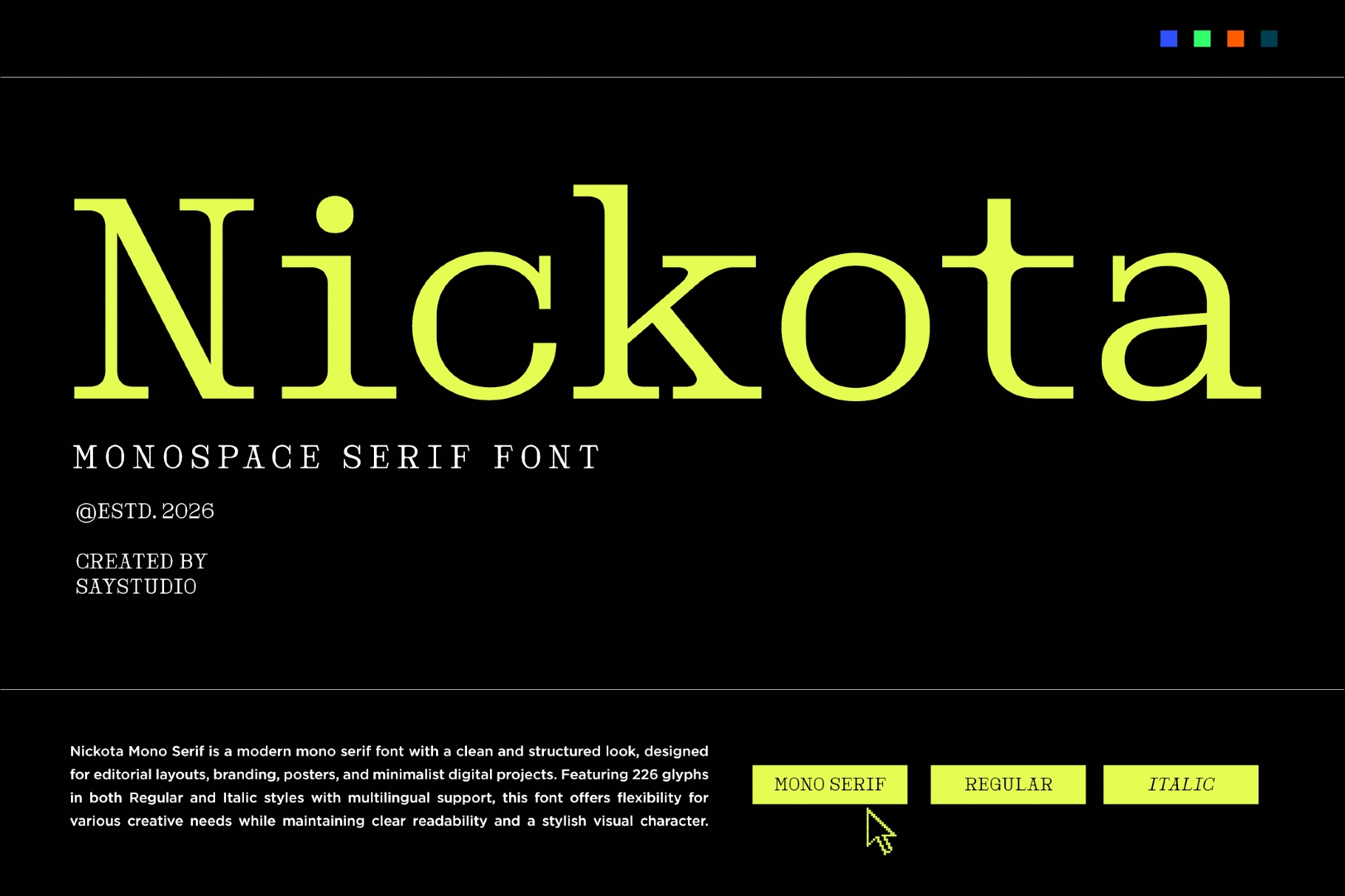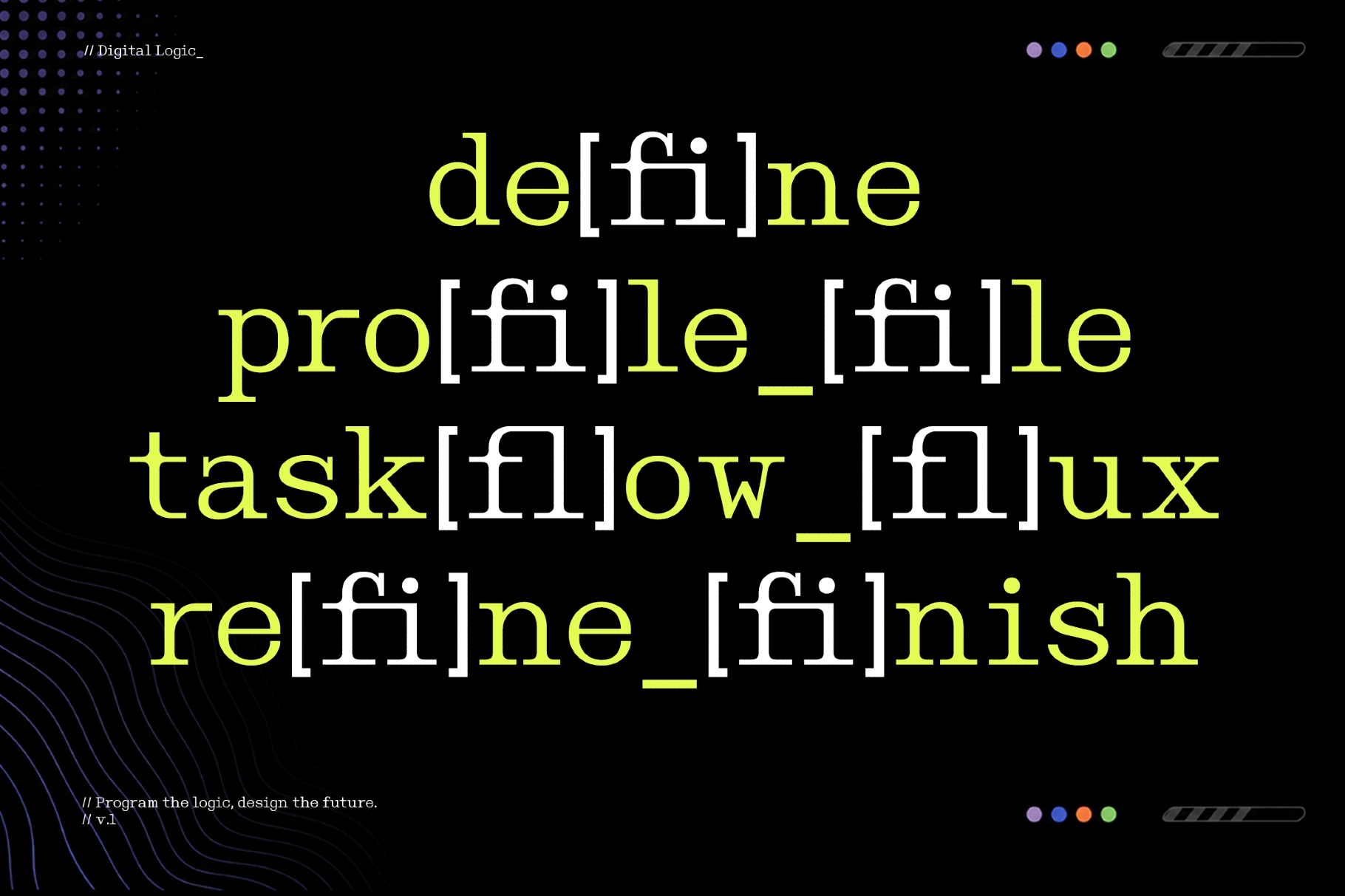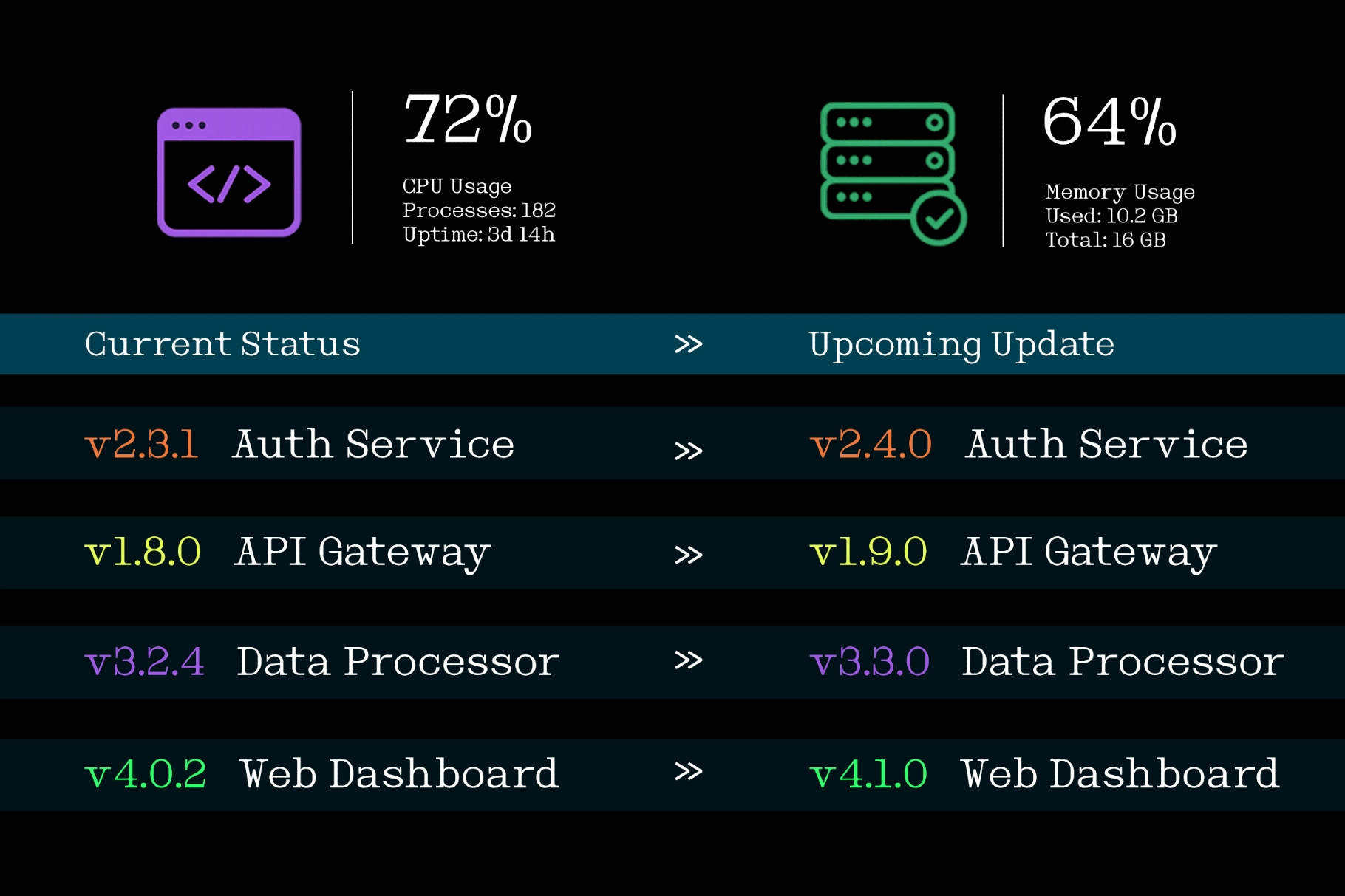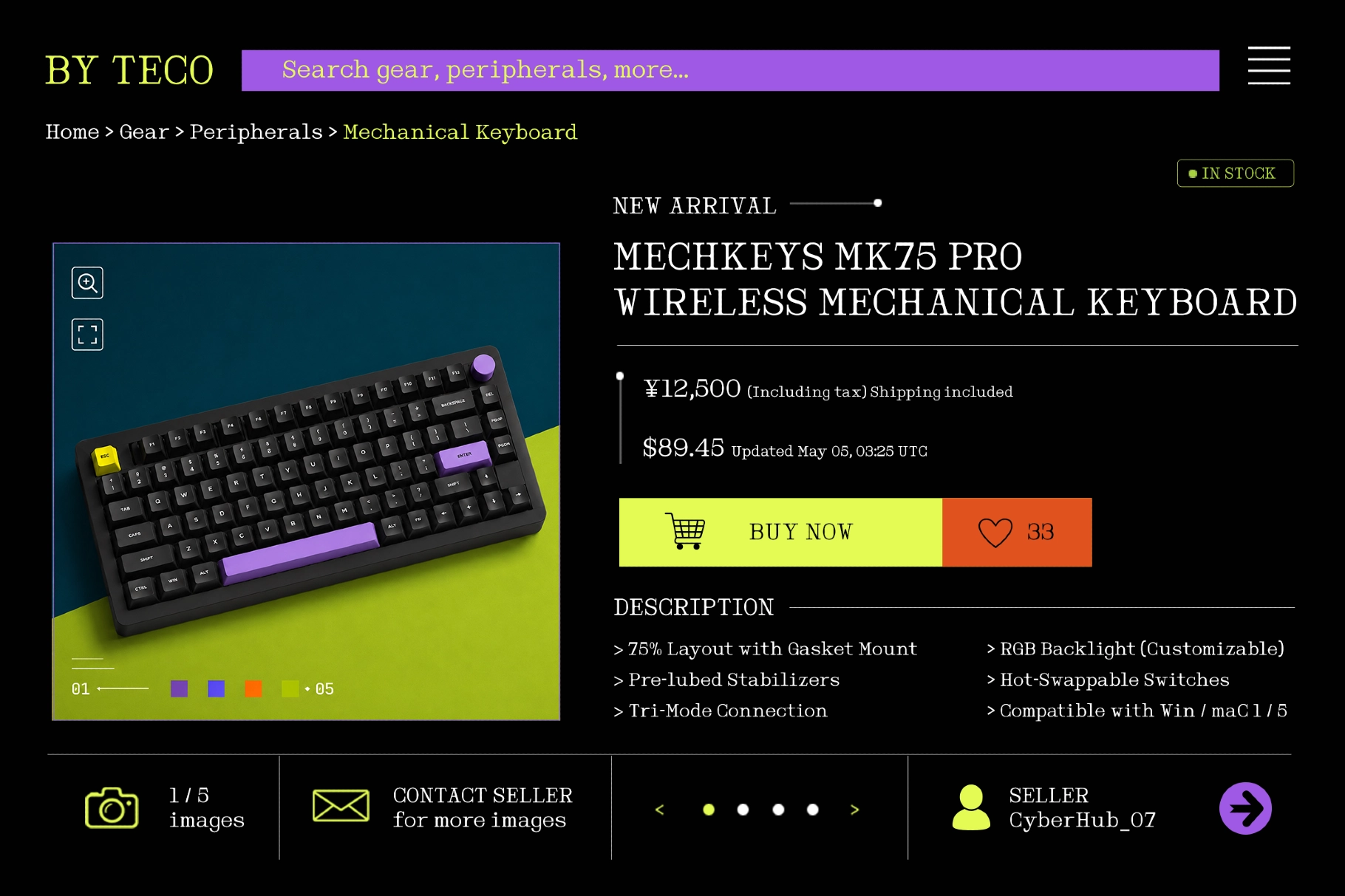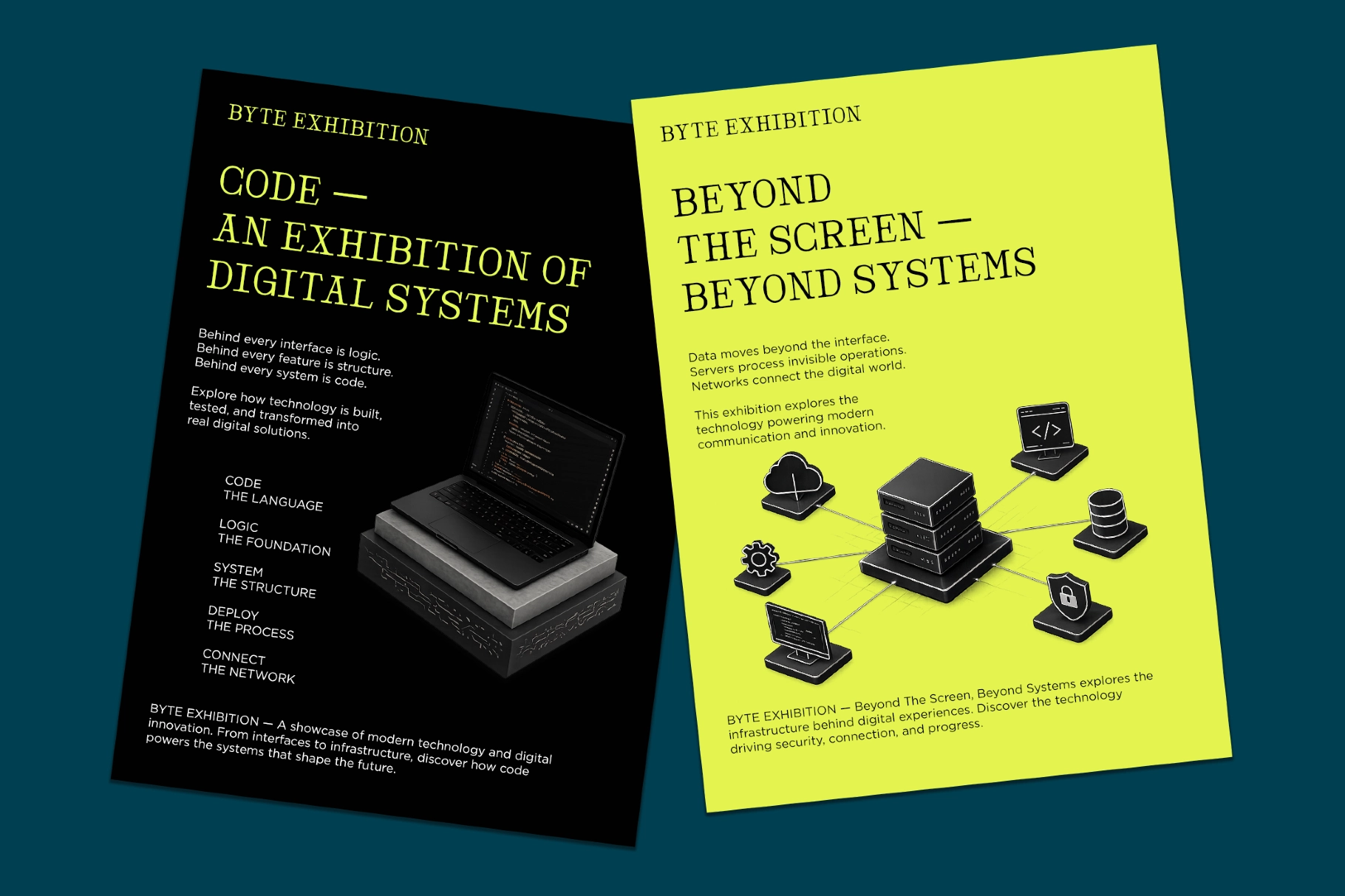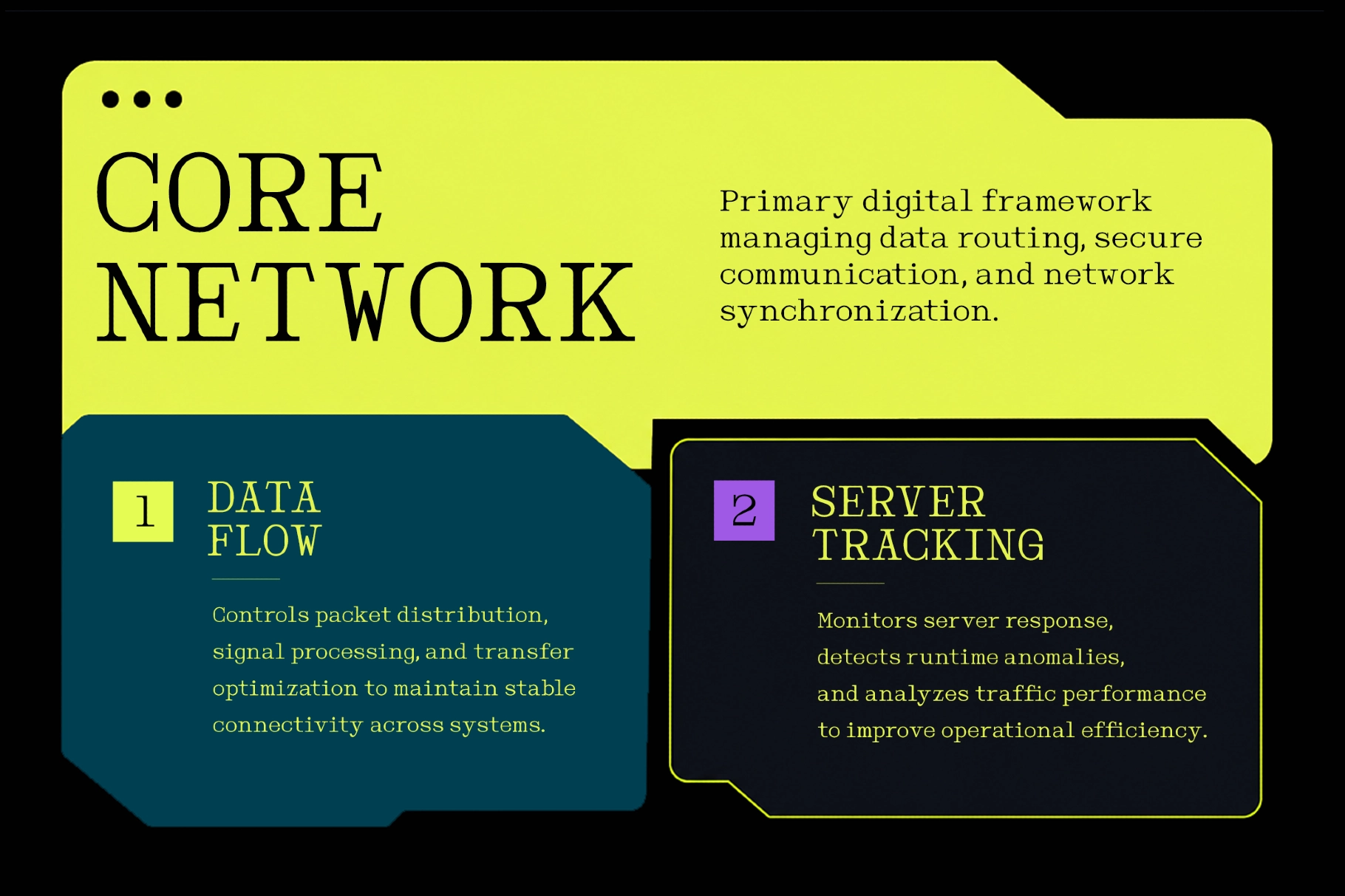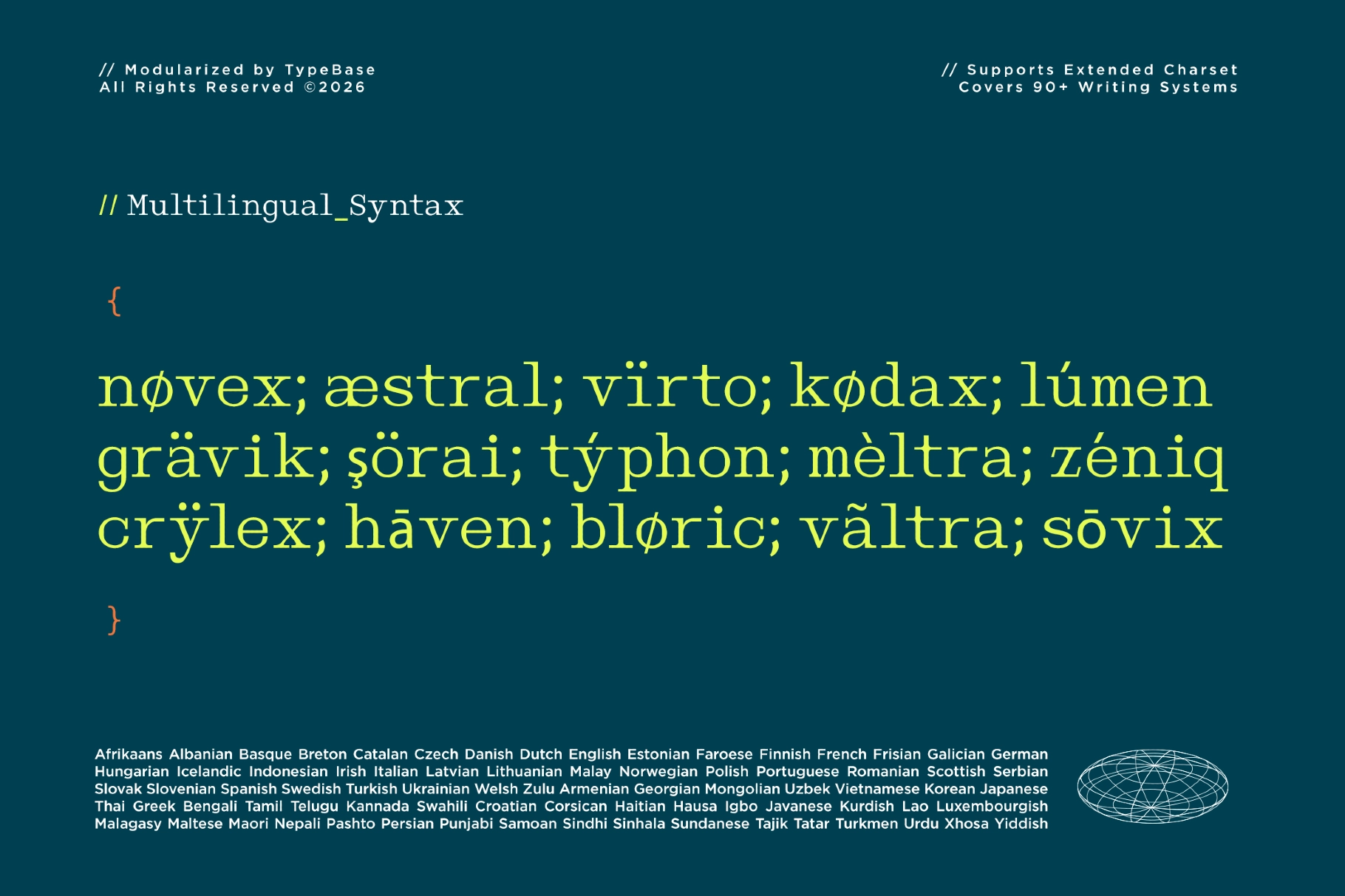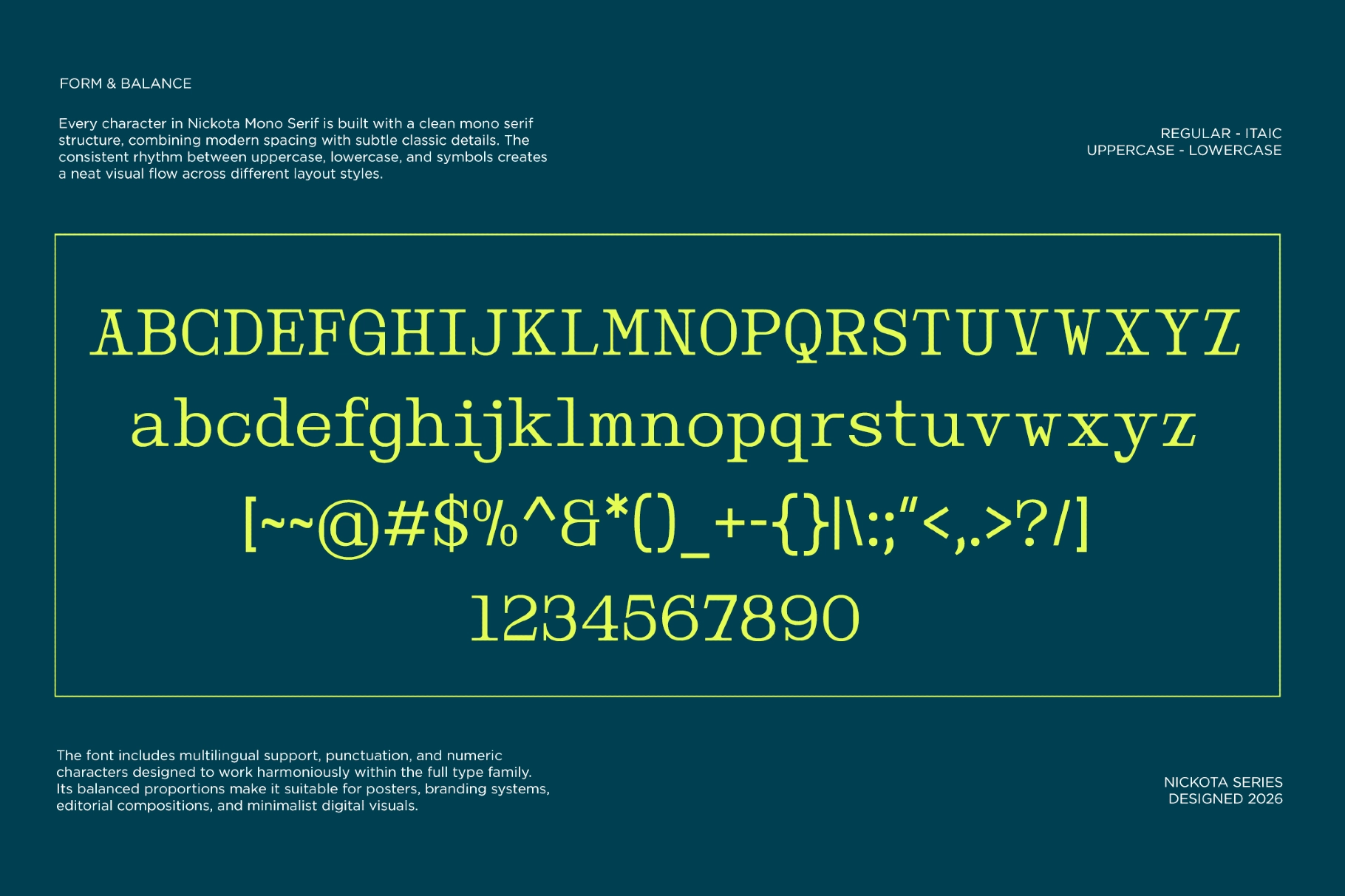
Nickota - Monospace Serif Font
This monospace serif typeface pairs typewriter precision with crisp serif detail , giving code-inspired typography a structured, retro character. Fixed-width spacing, clean alignment, and a sharp technical rhythm make it a strong fit for digital layouts with a developer-minded edge.
Nickota is ideal for coding-themed posters, terminal UI concepts, software branding, startup identities, app interfaces, sci-fi graphics, developer merchandise, tech editorials, dashboard designs, product labels, and more. The Regular and Italic styles give designers room for hierarchy, emphasis, and neatly aligned text systems.
• 2 styles: Regular, Italic
• 262 glyphs